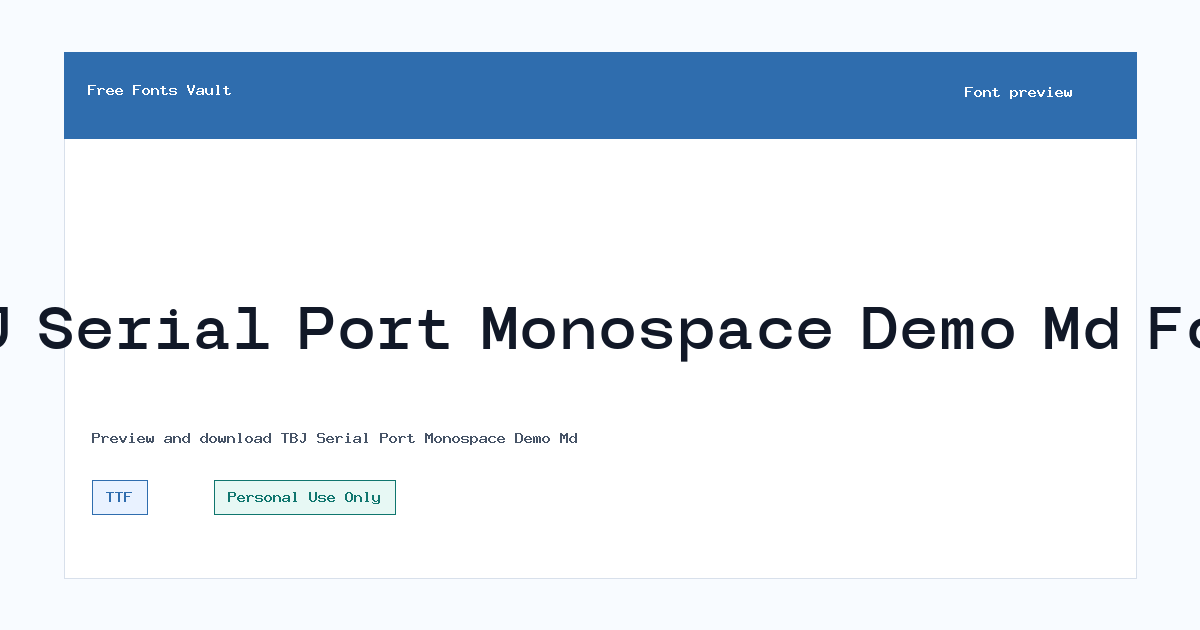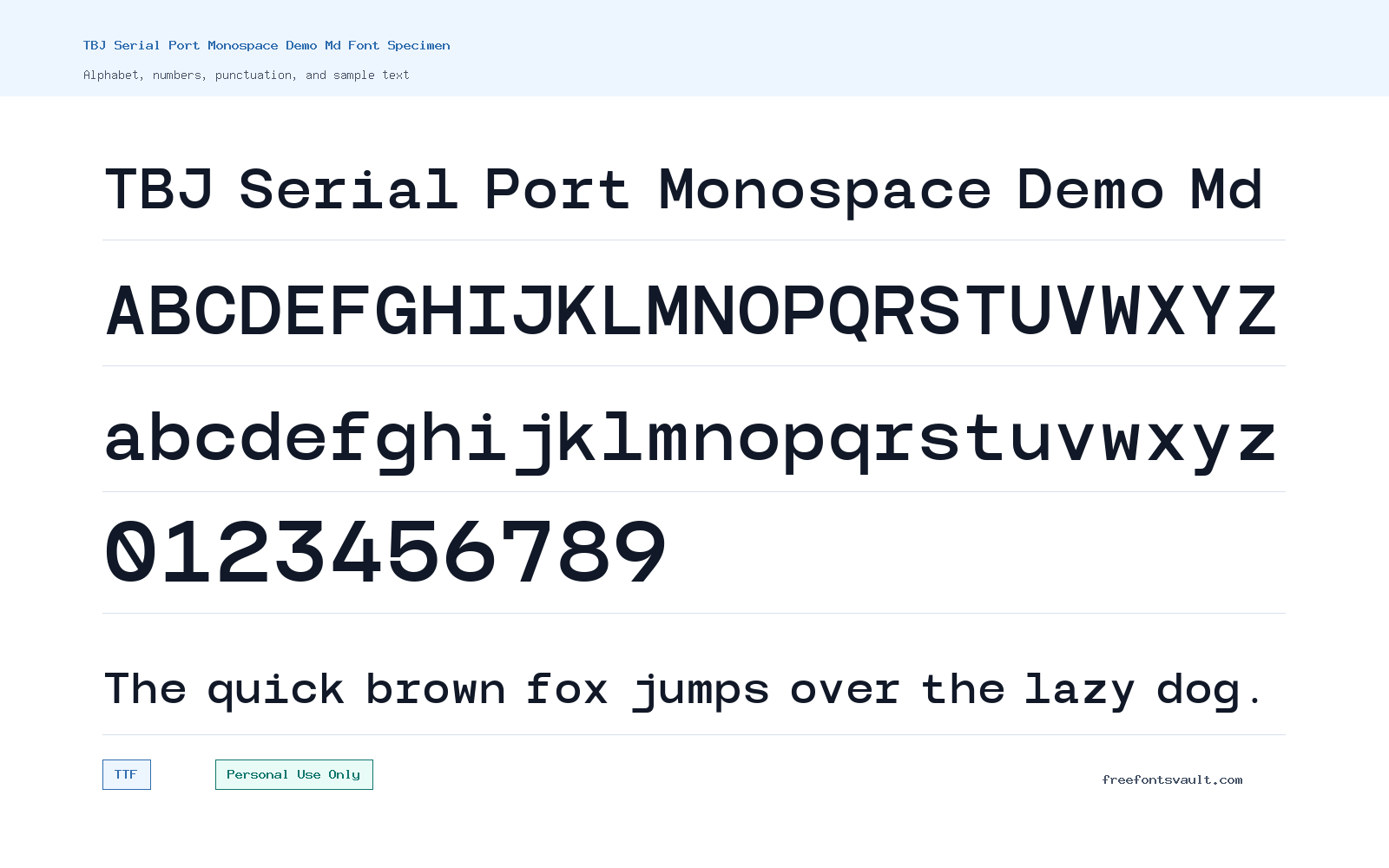
TBJ Serial Port Monospace Demo Md
TBJ Serial Port Monospace Demo Md Font
TBJ Serial Port Monospace Demo Md font.
TBJ Serial Port Monospace Demo Md is a personal-use monospace demo font from Arif Rijal and Taboja Studio. It is a practical choice to preview when you want a technical, fixed-width look for short display text, branding drafts, posters, interface mockups, or experimental typography.
About TBJ Serial Port Monospace Demo Md
TBJ Serial Port Monospace Demo Md uses a monospace structure, which means each character is designed to occupy the same horizontal space. That gives text a steady rhythm and a more engineered feel than a proportional font. The name points toward a serial-port or terminal-like visual direction, so it is worth testing for projects that need a digital, hardware, coding, or machine-interface mood without relying on a standard system monospace. Because the download is a demo TTF, the safest way to judge it is directly in the preview tool: try uppercase words, lowercase words, numbers, punctuation, and the exact phrase you plan to use.
For design work, this font is most useful in short, controlled settings rather than long reading passages. Try it for logo concepts, poster headings, tech-themed social graphics, product labels, web hero mockups, app screens, packaging drafts, or title cards where a fixed-width texture adds character. Monospace fonts can look very clean in grids and aligned layouts, but they can also feel stiff if used for too much body copy. If you are making a logo or brand mark, test tight spacing, wide spacing, and small-size rendering before committing. For web mockups, use it in headings, buttons, badges, navigation labels, code-style callouts, or interface details, then pair it with a calmer sans serif for paragraphs.
• Monospace letter spacing for a fixed-width, technical text rhythm.
• Single regular-style variant for straightforward testing in headings, logos, and interface mockups.
• Works best in short text where the mechanical spacing can become part of the design.
• Tech-inspired logo drafts and wordmarks
• Poster titles and display typography
• Web hero mockups and interface concepts
• Code-style labels, badges, and UI details
• Product or packaging drafts with a digital tone
• Social graphics, title cards, and short promotional layouts
Start by previewing the exact words you need, especially if the design depends on numbers, punctuation, or mixed-case text. Monospace fonts can create strong alignment in layouts, but they may need careful tracking in logos and headings. Pair this font with a neutral sans serif for body text, captions, and longer descriptions so the display style does not make the whole page feel too rigid. In posters or web mockups, give it enough spacing and contrast, and test it at both large and small sizes before using it in a final design.
What type of font is TBJ Serial Port Monospace Demo Md?
It is a monospace font, meaning the characters are designed around a fixed-width spacing system. That makes it useful for technical, digital, code-like, or structured display text.
Is this font good for body text?
It is better suited to short text, headings, labels, and display use. For long paragraphs, pair it with a simpler, more readable sans serif or serif font.